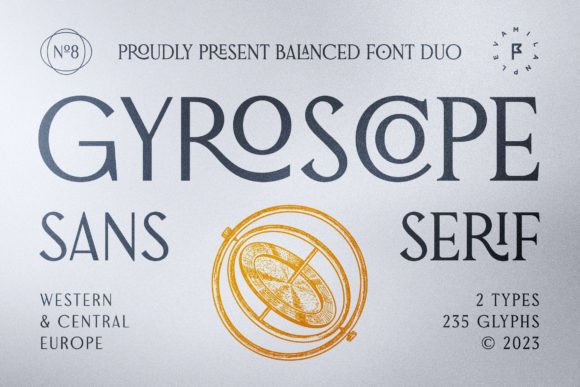
Introducing Gyroscope Font, the ultimate choice for elevating your design projects! Created by the talented milan.pleva24, this font is not your average sans-serif. With its unconventional letterforms and captivating design, Gyroscope Font will make your designs stand out from the crowd.
Are you tired of using the same old boring fonts for your branding and advertising? Look no further, as Gyroscope Font brings a breath of fresh air to your creative projects. Its uniqueness and individuality will captivate your audience and leave a lasting impression. Say goodbye to mundane designs and hello to a font that speaks volumes.
Gyroscope Font is the perfect solution for projects that demand a touch of creativity and a dash of personality. Whether you're designing a logo, creating stunning visuals for social media, or working on an eye-catching exhibit, this font has got you covered. Its versatility allows it to adapt seamlessly to any design concept, making it the go-to choice for designers and creatives alike.
Don't settle for ordinary. Choose Gyroscope Font and experience the power of exceptional design. Its captivating and emotional essence will evoke a sense of wonder and intrigue in your audience. Stand out in the crowded digital landscape and make a statement that truly resonates.